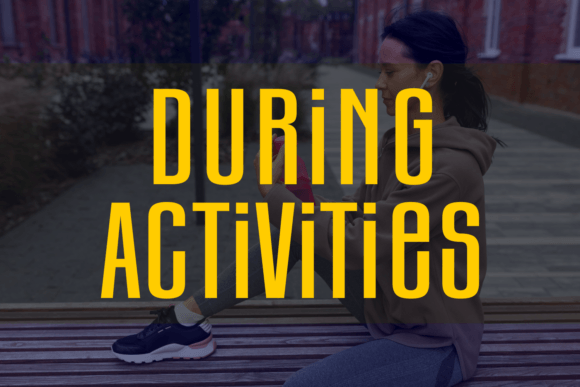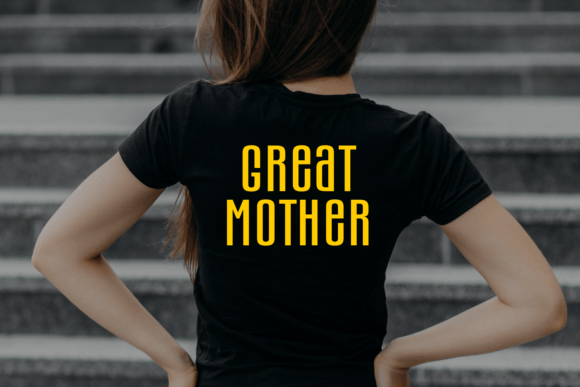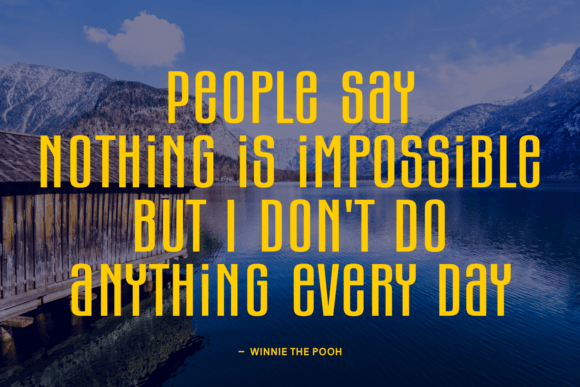
Discovering the Perfect Design Resource
Have you ever been stuck on a creative project, scrolling through font options, and just can’t seem to find the right one? That’s where the Lonely Island Font comes in – a modern sans-serif font that’s as sleek as it is sophisticated.
With its clean lines and subtle curves, the Lonely Island Font is a game-changer for designers looking to elevate their branding, logos, and editorial layouts. This high-quality font is perfect for conveying elegance and contemporary style, making it a valuable addition to any design resource library.
Key Features of Lonely Island Font
- High-quality design resource for creative projects, including logos, graphics, and more.
- Unique, hand-drawn style with a transparent background, allowing for seamless integration into any design.
- Perfect for designers, artists, and creatives seeking a distinctive and eye-catching element for their projects.
Honest Review: Lonely Island Font
I recently stumbled upon the Lonely Island Font, a free download that caught my eye as a design resource for a creative project. The font’s quirky, playful vibe immediately resonated with me.
What works well is the font’s high quality and unique character set. The designer has done an excellent job in creating a visually appealing font that’s perfect for adding a touch of personality to a design. The transparent background makes it easy to overlay on any background image, giving designers the flexibility they need. ✨
Another plus is the font’s compatibility with various design software, making it a great addition to any designer’s toolkit. The font also comes with a range of weights and styles, offering endless possibilities for creative expression.
However, there are a few limitations to consider. The font’s design may not be suitable for all types of projects, particularly those requiring a more professional or formal tone. Additionally, some users may find the font’s unique character set a bit too quirky for their taste. ⚠️
Overall, the Lonely Island Font is a great resource for designers looking to add some personality to their projects. While it may not be suitable for all designs, its unique character and high quality make it a great addition to any designer’s toolkit.
- Perfect for adding a touch of personality to a design
- High quality and unique character set
- Transparent background for easy overlay
- Range of weights and styles for creative expression
Getting the Most Out of Lonely Island Font
Use the Lonely Island Font in conjunction with other design elements to create a visually appealing design. Experiment with different font sizes and styles to add depth and interest to your design. Consider pairing the font with a high-contrast background to make it stand out.
Common Use Cases for Lonely Island Font
The Lonely Island Font is a versatile design resource that can be used in a variety of creative projects, including social media graphics, business cards, and brochures. Its transparent background feature makes it easy to layer with other design elements, making it a great choice for designers of all levels.